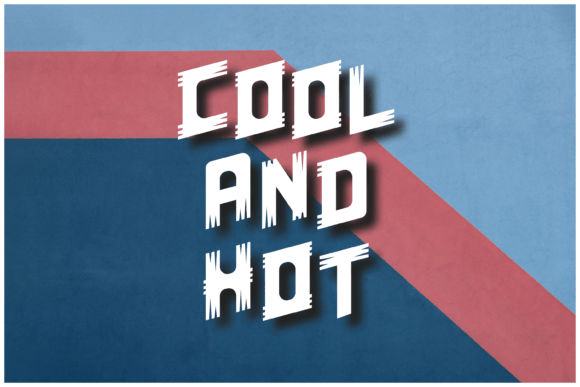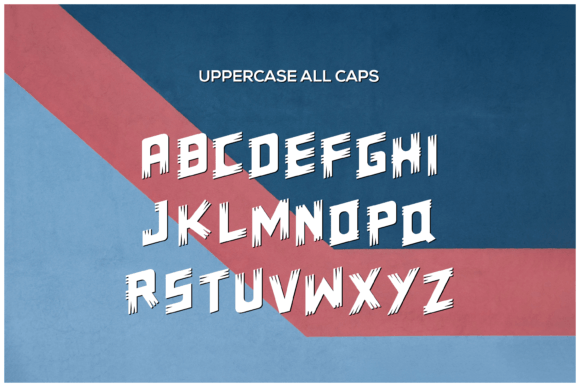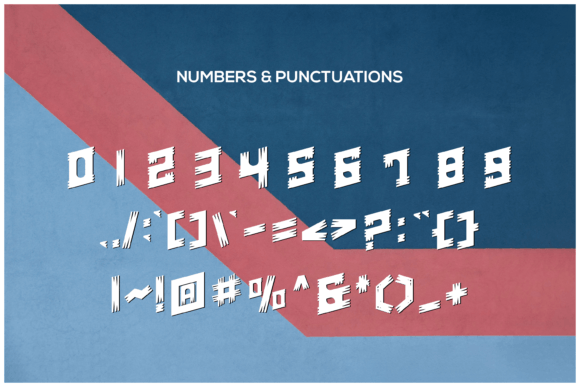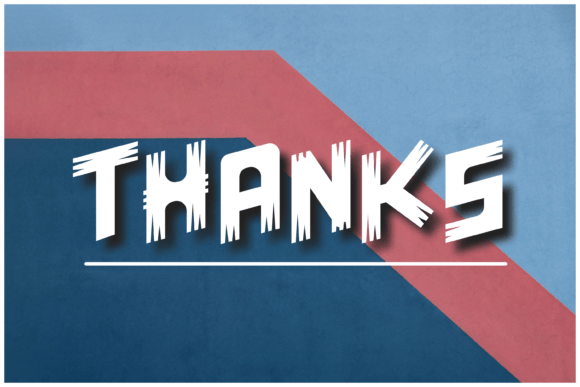
The Font that Stole my Heart: A Deep Dive into Anyese Font
I still remember the design project that led me to discover Anyese Font. I was working on a fun, quirky branding project for a new coffee shop, and I was struggling to find the perfect font to capture their playful vibe. That’s when I stumbled upon Anyese Font, and it instantly became my go-to choice. In this article, I’ll share my love for this modern display font, its features, and how to make the most of it in your designs.
An Honest Review of Anyese Font
What I Love About Anyese Font
- ✨ Unique and Quirky Design: Anyese Font has a one-of-a-kind personality that adds a touch of whimsy to any design project.
- ✅ Highly Versatile: This font is suitable for a wide range of design ideas, from branding and advertising to packaging and digital media.
- 💡 Instant Recognition: Anyese Font’s distinctive style makes it easy to create memorable and eye-catching designs.
While Anyese Font is an amazing choice for many projects, there are a few things to keep in mind:
- 🤔 Legibility at Small Sizes: As with many display fonts, Anyese Font may not be the best choice for body text or small font sizes.
- ⚠️ Glyph Limitations: While Anyese Font has a range of OpenType features, it may not have as many glyphs as some other fonts on the market.
- Experiment with OpenType features like Stylistic Alternates and Glyphs to add visual interest to your design.
The Backstory of Anyese Font
Anyese Font was designed with the goal of creating a unique, modern display font that would add a touch of whimsy to any design project. While I couldn’t find much information on the font’s origins, I like to imagine that it was created by a designer who wanted to push the boundaries of traditional typography.
Q: What type of projects is Anyese Font best suited for?
A: Anyese Font is perfect for branding, advertising, packaging, and digital media projects that require a unique, modern display font.
Q: Is Anyese Font available in different weights or styles?
A: Anyese Font may come in different weights or styles, but it’s best to check with the font foundry or designer for specific details.